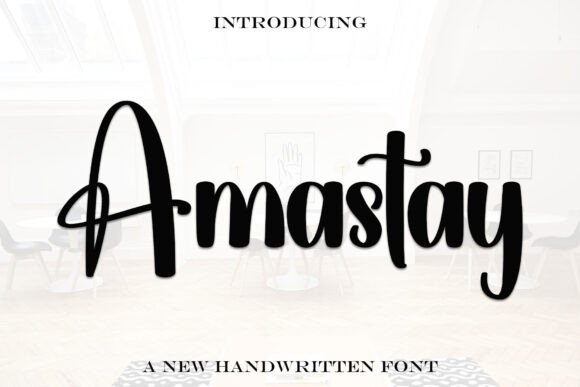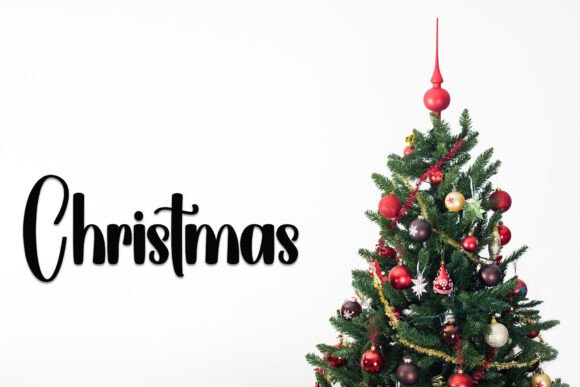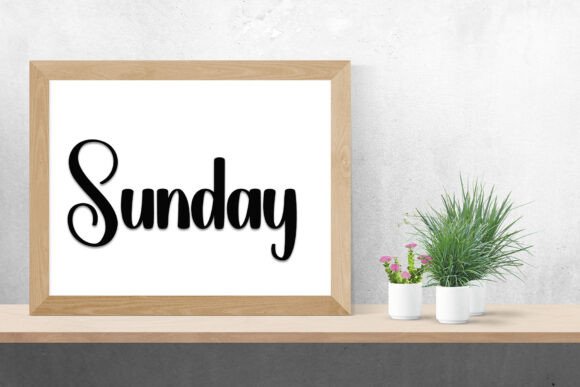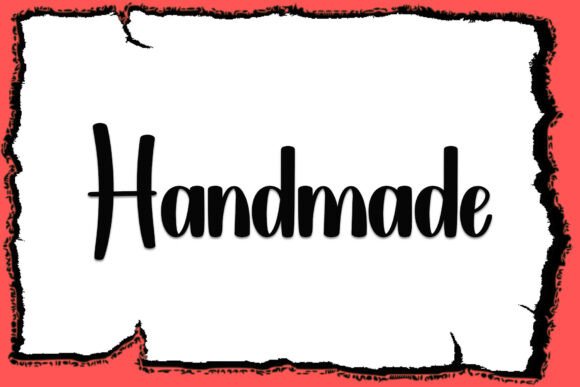
Amastay Font: A Sweet Handwritten Script for Wedding & Branding Design
About the Amastay Font
Presenting Amastay Font, a unique and stylish typeface that will make your work stand out. Amastay is a sweet and cursive handwritten font. This gentle font will look gorgeous on a variety of design ideas. It will add a joyful and romantic touch to each of your projects! Perfectly fit for branding, logo, wedding things, greeting cards, fashion, lookbook, marketing promotion, and any time you want your design to look fancy and elegant but still casual.
Amastay’s delicate cursive is ideal for headlines, short text blocks on invitations or packaging, and branding elements requiring a touch of elegance and playfulness. It excels in applications where readability isn’t paramount, such as logos, short quotes, or headings on marketing materials. Avoid using it for body text or lengthy paragraphs; its cursive nature hinders readability at smaller sizes.
Its gentle personality pairs well with clean sans-serif fonts like Montserrat or Open Sans for a balanced contrast, creating visual hierarchy and preventing visual fatigue. For a more luxurious feel, consider pairing it with a classic serif like Garamond or a subtly geometric sans-serif like Lato. Avoid pairing it with other script fonts, which can result in a cluttered and illegible design.
Amastay projects a friendly, romantic, and slightly whimsical personality, making it perfect for brands associated with weddings, fashion, beauty, or artisanal goods. Its charm is best showcased in designs that prioritize aesthetics and emotional impact over sheer information density.
Amastay Font Usage Examples
Amastay Font Example